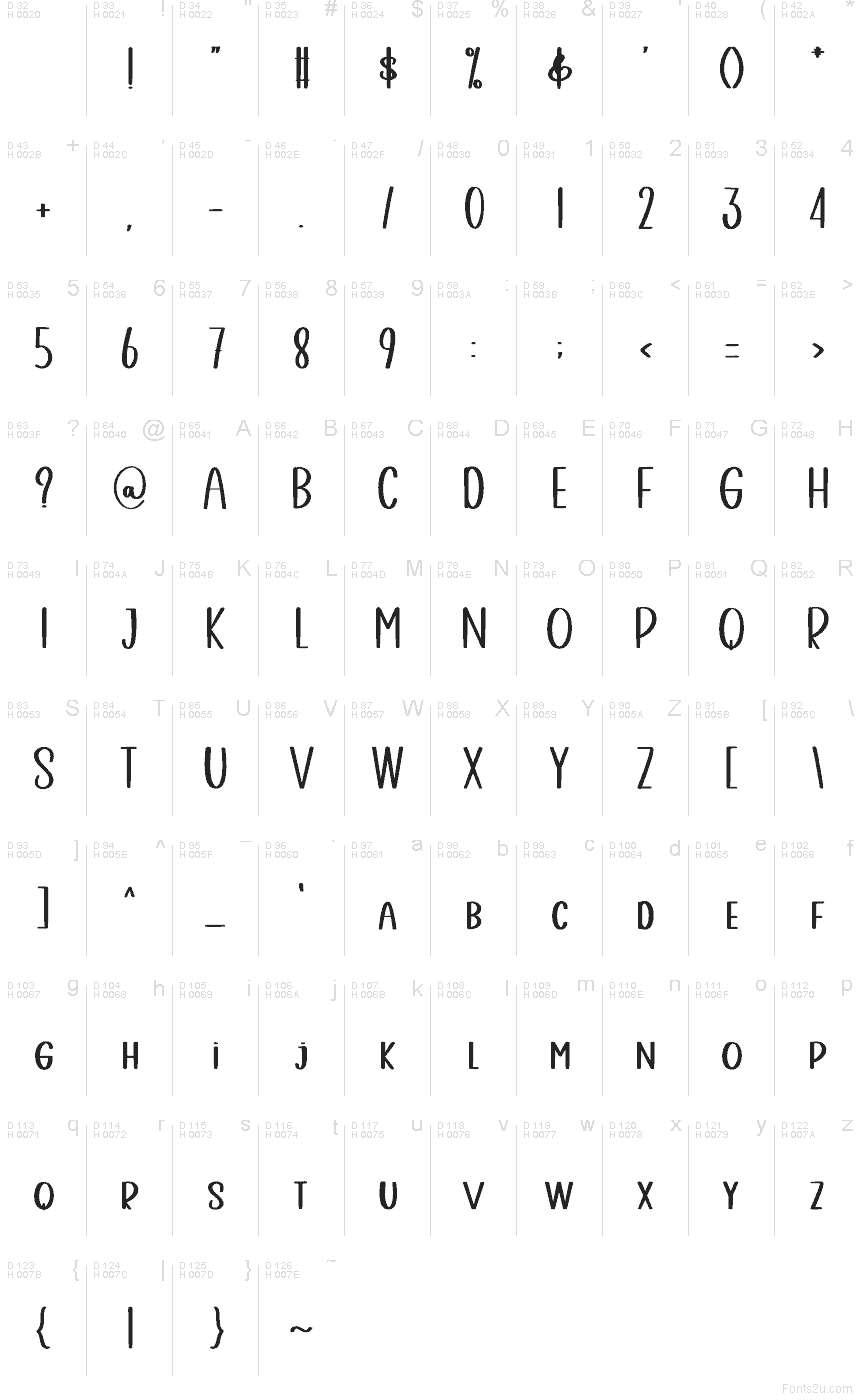
SIMPLE SOMETIME
Simple sometime font by PiPi Creative STUDIO is a free handwritten font with tall, narrow letters and an inky, slightly textured finish. Its condensed shapes let you squeeze more words into tight spaces while still feeling breezy and relaxed, like neat handwriting done with a felt-tip pen. The even rhythm and rounded strokes give it a friendly, approachable voice that stays readable at larger sizes.
Using Simple sometime, you can add an easygoing, hand-crafted touch to quote posters, Instagram graphics, planners, greeting cards, product labels, and cozy café branding. This free font shines when used in bold headings or short phrases; pair it with a clean geometric sans serif for small supporting text to keep layouts balanced and clear.